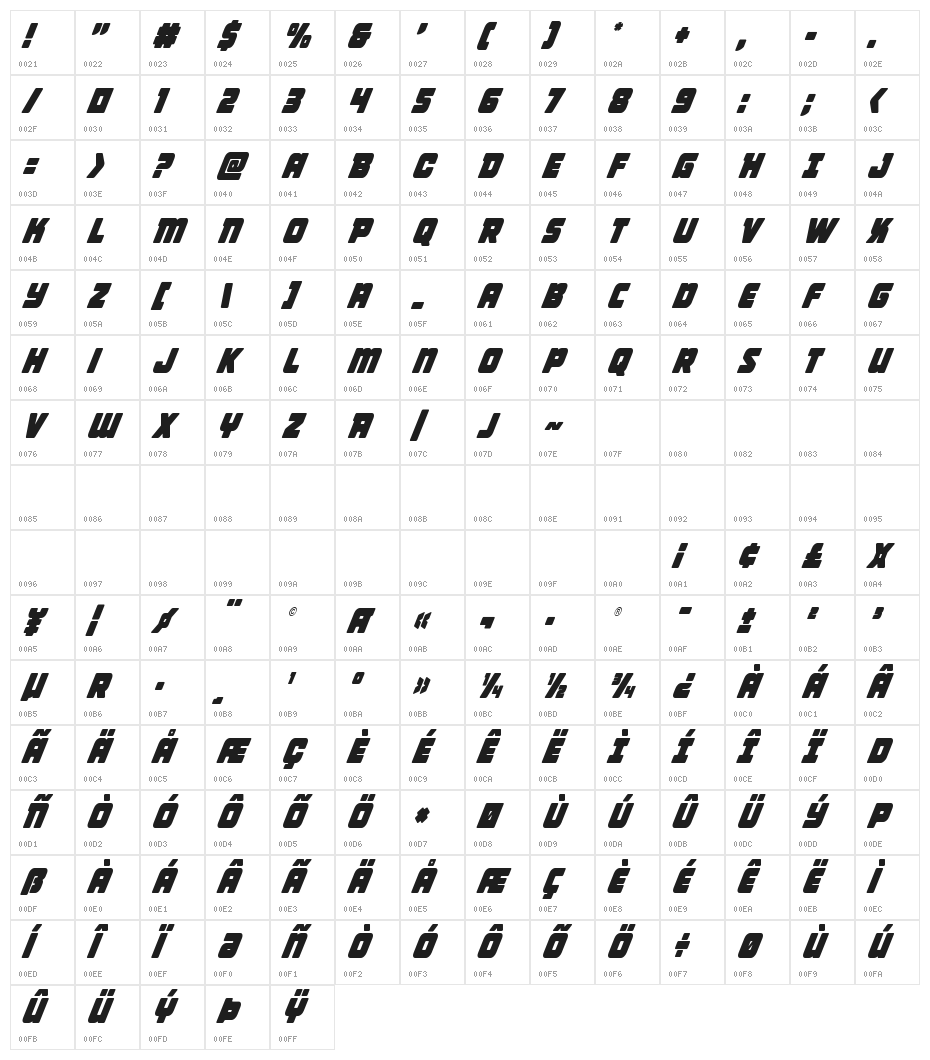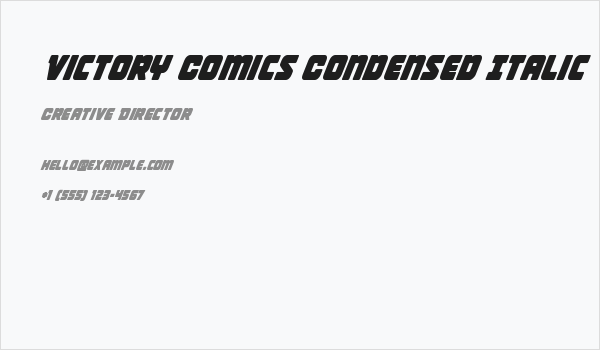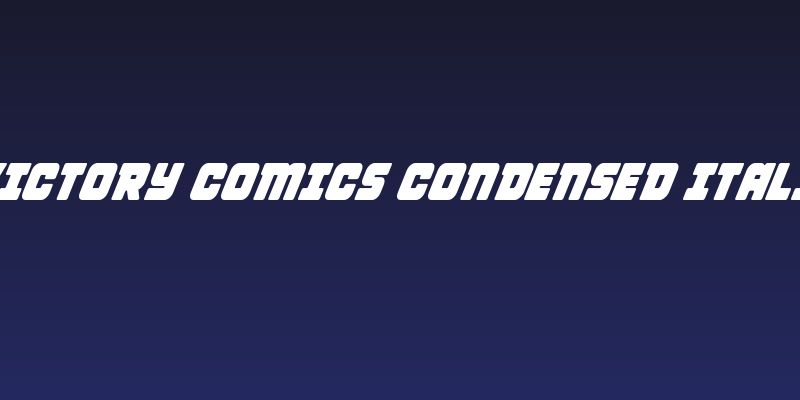
Victory Comics Condensed Italic Font
Victory Comics Condensed Italic Description
This font features a bold, italicized style with a condensed width, giving it a dynamic and energetic appearance. The characters are robust and impactful, with a slight slant that adds a sense of motion and urgency. The uppercase and lowercase letters are consistent in their boldness, maintaining a uniform look across the typeface. The numbers and special characters follow the same design principles, ensuring a cohesive appearance. The overall style is reminiscent of comic book lettering, making it suitable for projects that require a playful yet assertive tone.
| Proposed Projects | Ideal for comic books, graphic novels, posters, and branding that requires a bold and energetic look. |